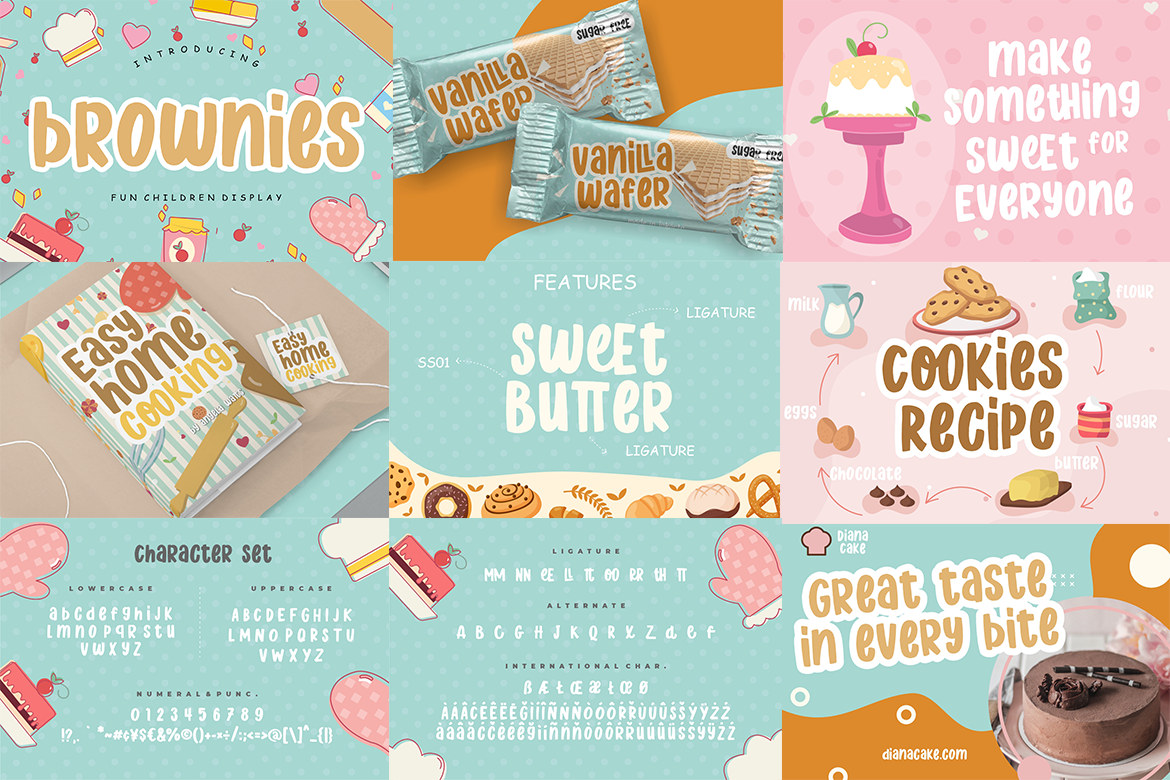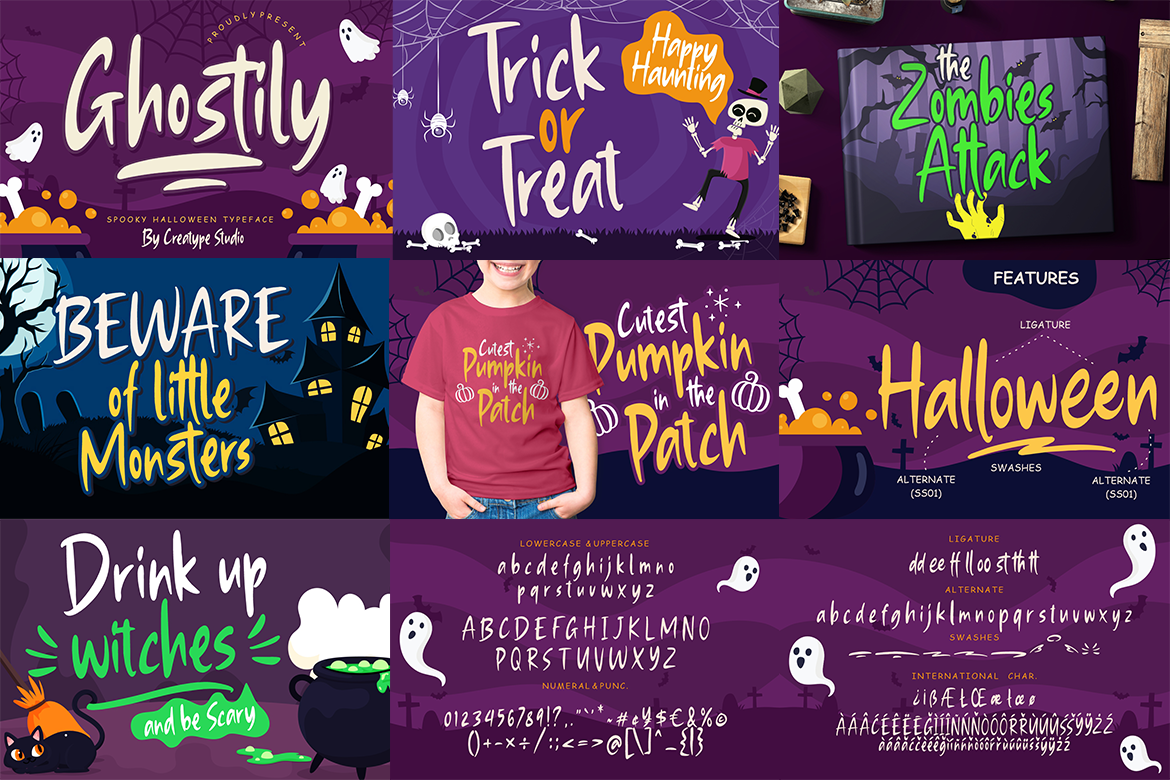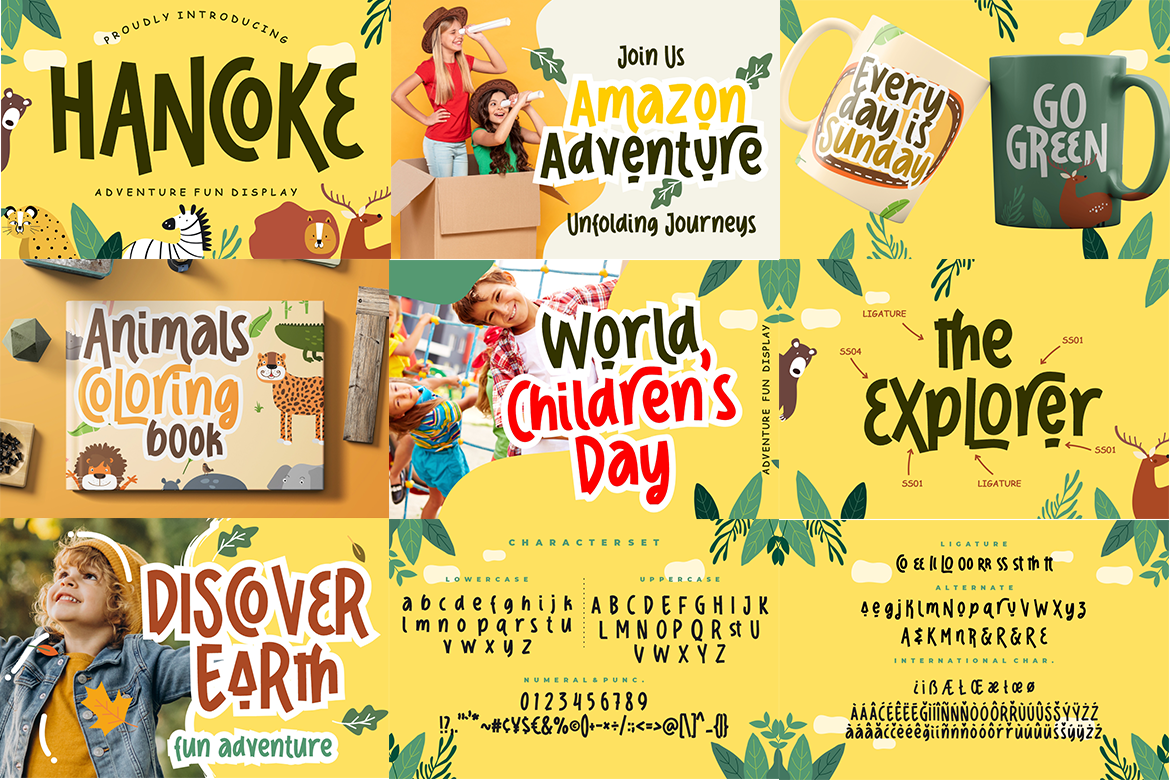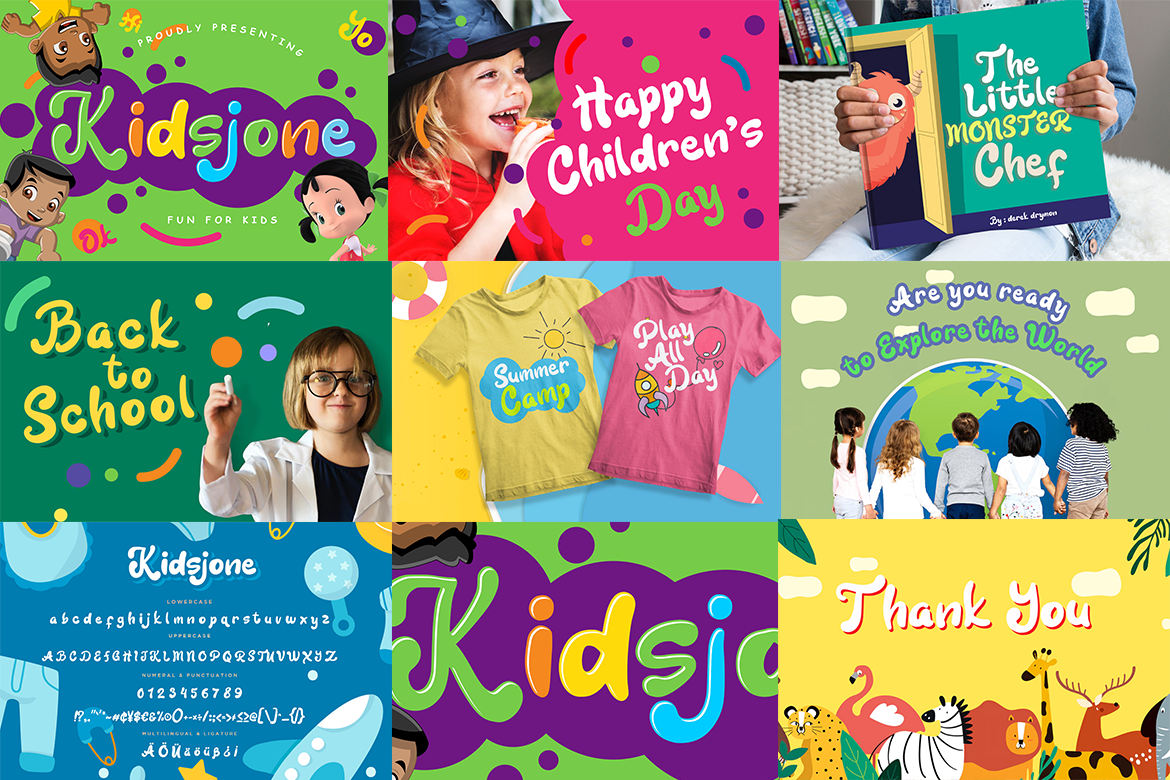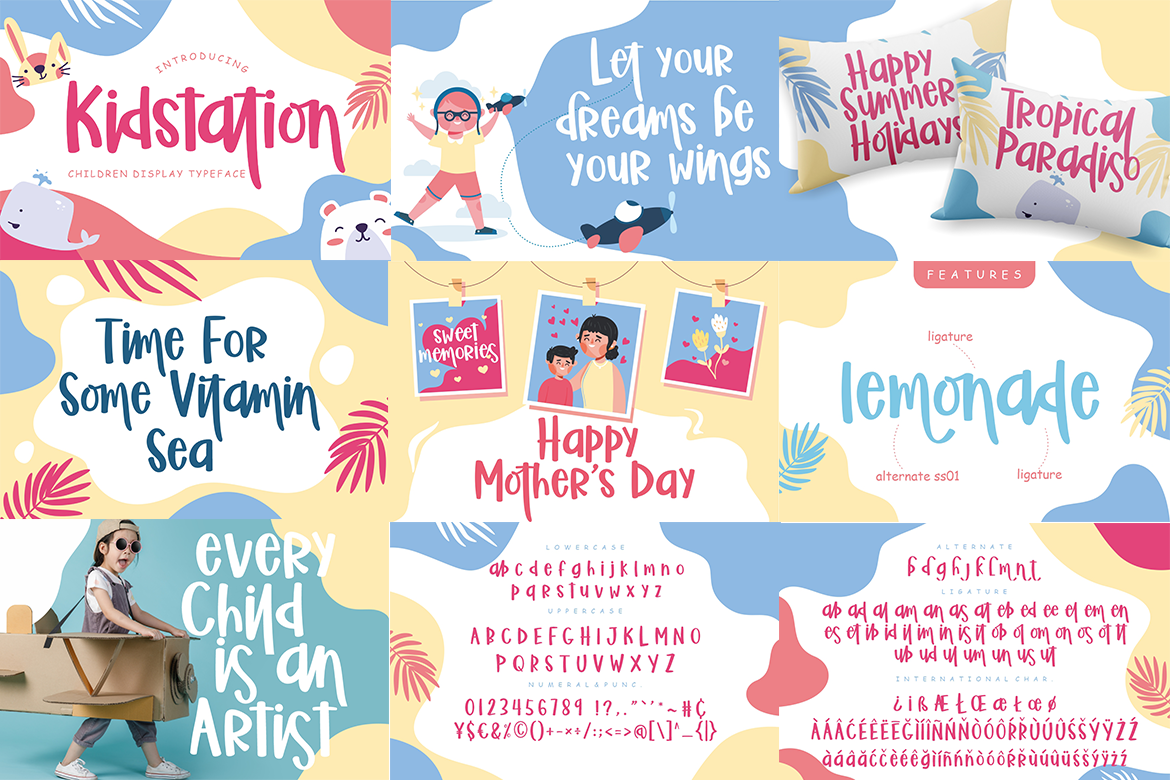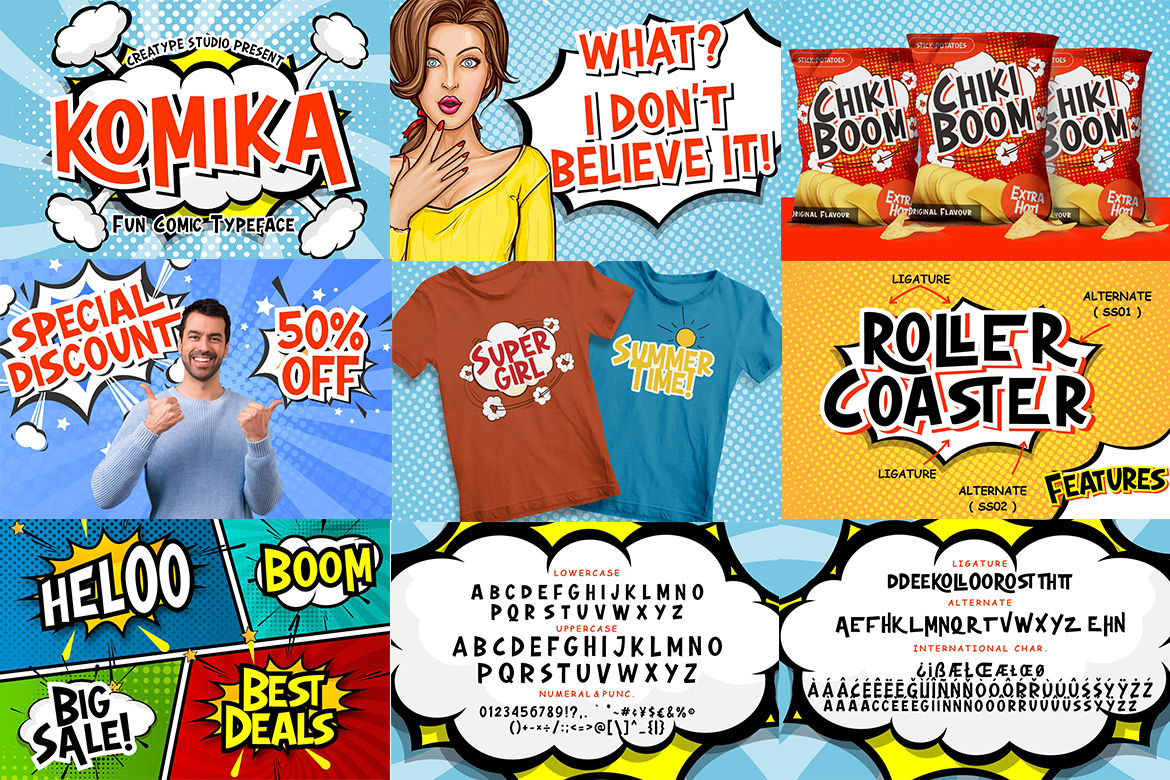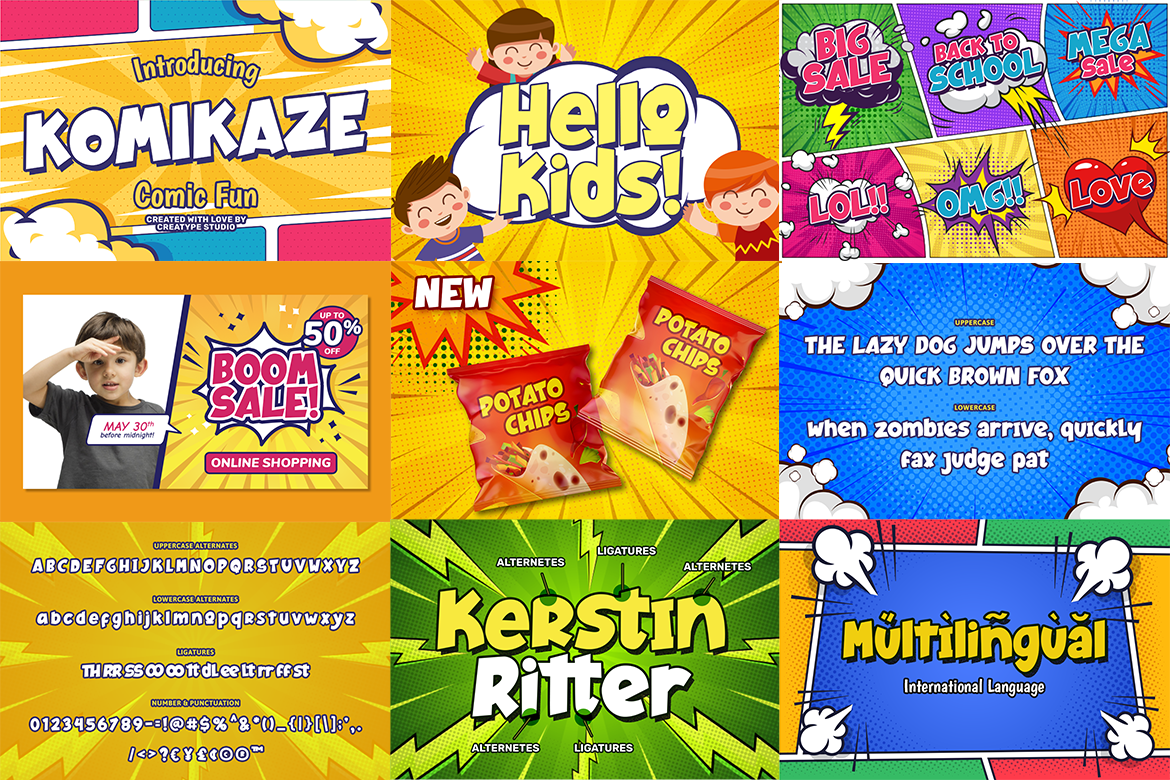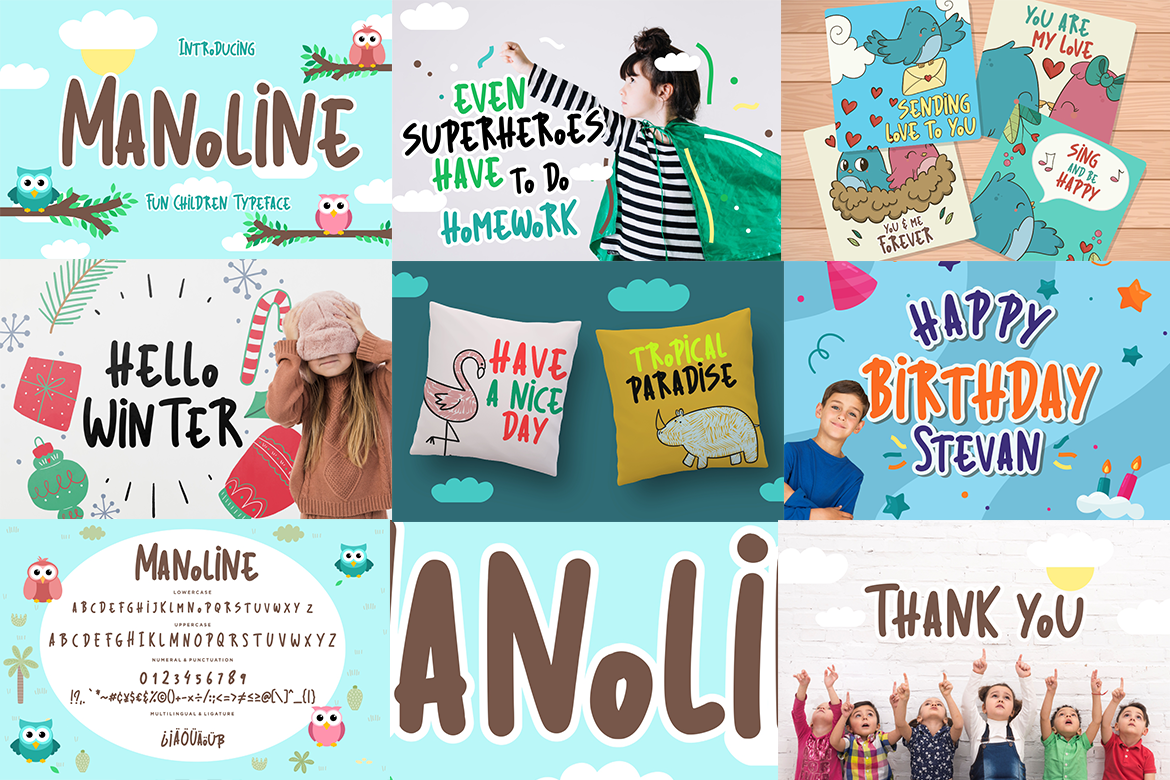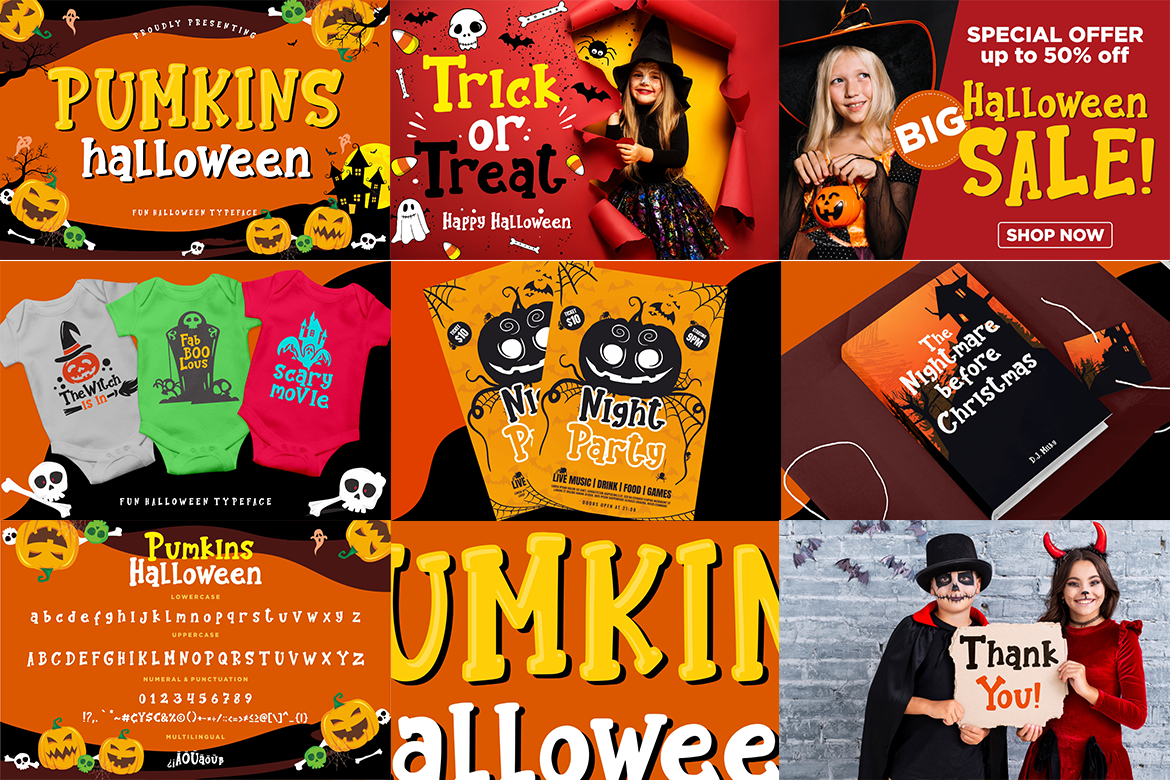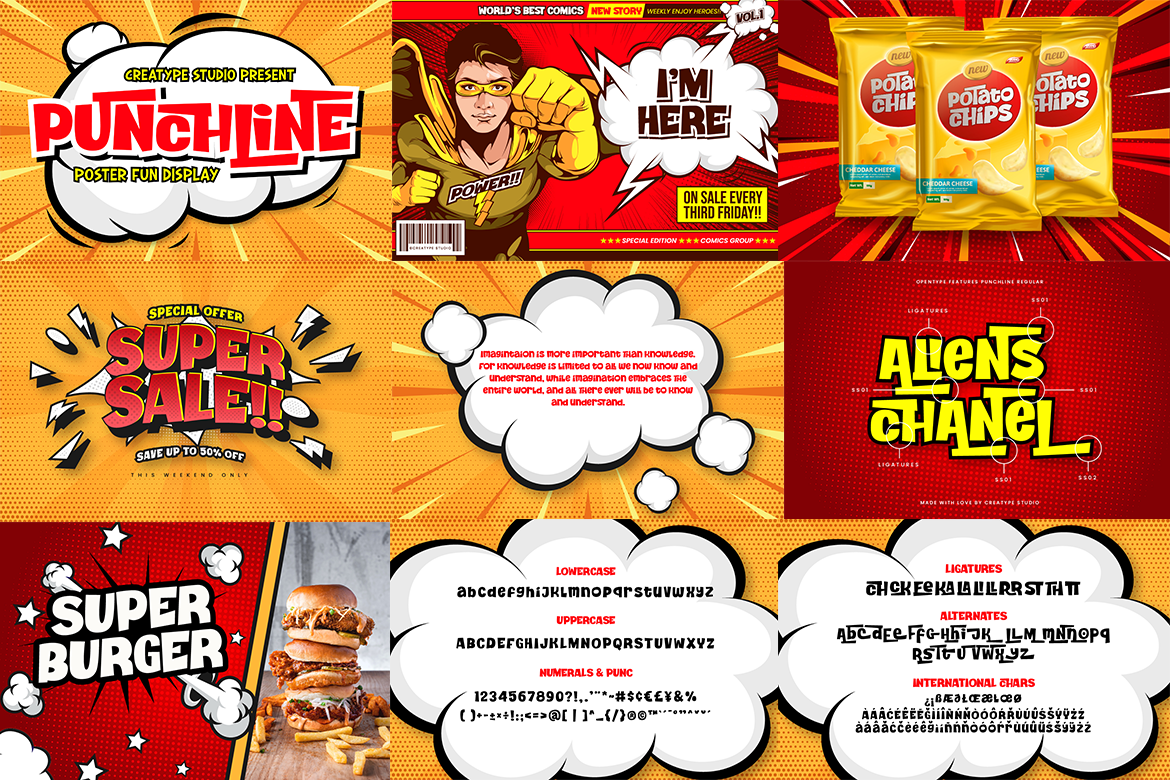
12 Best Comic Fonts Bundle, Perfect Choice for Fun Creations
When typography, creativity, and fun collide, you’ll get comic fonts. Comic-style fonts are a vibrant and expressive category that brings a sense of fun and approachability to your design. Their whimsical nature makes the content feel lively and emotionally pleasing, making them a popular choice for storytelling and visual communication.
12 Best Comic Fonts for Expressive Designs
Whether you’re designing for a comic book, quirky poster, or even a playful web page, these fonts can make everything pop! So, inject some humour and lightheartedness into your design with the perfect sidekick to make your words stand out! Check out the sorted collection of comic typefaces below for your projects!
1. Brownies
Brownies is a fun display font. It’s a mix of bold letters with cute aesthetics. It has uppercase and lowercase letters separately, but only one type of “R and L”. To balance out the cuteness, you can try the alternates for a more delicate flavour.
2. Wigglye
As the name suggests, Wigglye can’t stand with just cute and artsy typeface. Rather, it has little ornament around each letter to accentuate its wiggly motion. It perfectly conveys activeness and excitement in your designs.
3. Roshfox
This playful display font has both a bubbly and rugged style at the same time. This font only has uppercase letters so it’s perfect to grab attention and the rugged side just adds uniqueness to the other bubbly font.
4. Punchline
Punchline should be on your comic book fonts list if you’re making comic-themed designs. This font shapes covey bolder expressions, perfect for headlines, logos, and displays. Don’t forget to use its unique alternates to make your design stand out.
5. Pumkins
Technically, Pumkins is a serif font, but actually, it is a fun and comically bold Halloween font to spice up your designs. The font has a uniform typeface, so you can kinda expect how each letter looks to make a neat design.
6. Ghostily
A spooky typeface just like the name. This one has a slender look and pointy ends, cutely imitating scratch marks. It’s best to add to your eerie, magical, or horror design projects.
7. Hancoke
Hancoke is a fun display font with an adventurous vibe. It has a playful and rounded appearance, some are like planks of wood, making it an eye-catching font. Don’t be surprised, these piles of wood sometimes bend in a funky way.
8. Komikaze
You can’t forget Komikaze among comic fonts from our studio! This font perfectly highlights the comic aesthetic while also evoking witticism and lightheartedness. The bold and chunky appearance can perfectly support some explosive phrases that you put in.
9. Kidstation
This font emphasizes a childish take on the alphabet. It incorporates unnecessary longer strokes to some letters, highlighting the unbotheredness of the rules. Sometimes you’ll also see some uppercase letters mixed between words.
10. Kidsjone
Kidsjone is a wild font, it looks like each letter is made of slime. It has both funky twirls and a bubbly look. Play around with some vibrant colours if you want a comical look, but using darker tones and capital letters can bring up a whimsical impression.
11. Komika
Komika is designed to stand out. Therefore, it only features uppercase letters. Among the best comic book fonts that will deliver your explosive phrases harmoniously. Although it has sleek cut-outs, the non-simetry makes it visually playful and fun.
12. Manoline
Last on our list of comic fonts, we have Manoline. It is a monoline font with a cheerful and lively vibe. It has great legibility, uppercase-only (except for the “O”), and uneven height, further conveying that it’s a familiar, handwritten font.